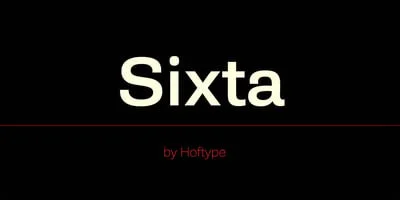
Sixta Font
Sixta Font is perfect for contemporary lifestyle branding, modern fashion campaigns, sleek beauty packaging, sophisticated urban marketing, trendy boutique signage, cosmopolitan event materials, stylish magazine layouts, chic hospitality communications, elegant social media graphics, and refined metropolitan advertising.
What makes Sixta Font exciting is its modern sophistication that perfectly captures the contemporary elegance and urban refinement found in today's fashion-forward lifestyle and metropolitan culture. This typeface features sleek letterforms with contemporary proportions and stylish details that evoke the confident grace and sophisticated appeal of modern city living. The font's chic personality and urban authenticity make it ideal for lifestyle brands seeking to convey modernity, sophistication, and the refined taste that comes from contemporary design sensibility and metropolitan lifestyle values.
Sixta Font family includes stylish weight variations and contemporary alternatives that enhance its modern appeal while providing design flexibility for fashion and lifestyle applications. The font features elegant ligatures, sophisticated ornaments, and chic character variations that create authentic metropolitan atmosphere for contemporary lifestyle and fashion branding.
Fashion brands and lifestyle companies consistently choose Sixta Font for projects requiring authentic contemporary appeal and sophisticated credibility. The font's stylish character excels in applications targeting modern consumers who appreciate genuine elegance and contemporary lifestyle values. Whether you're designing for fashion boutiques, beauty brands, or urban lifestyle products, this refined typeface delivers the contemporary authenticity and metropolitan sophistication that resonates with audiences seeking genuine modern style and the effortless elegance that defines contemporary urban living and fashion-forward lifestyle choices that celebrate sophisticated metropolitan culture.